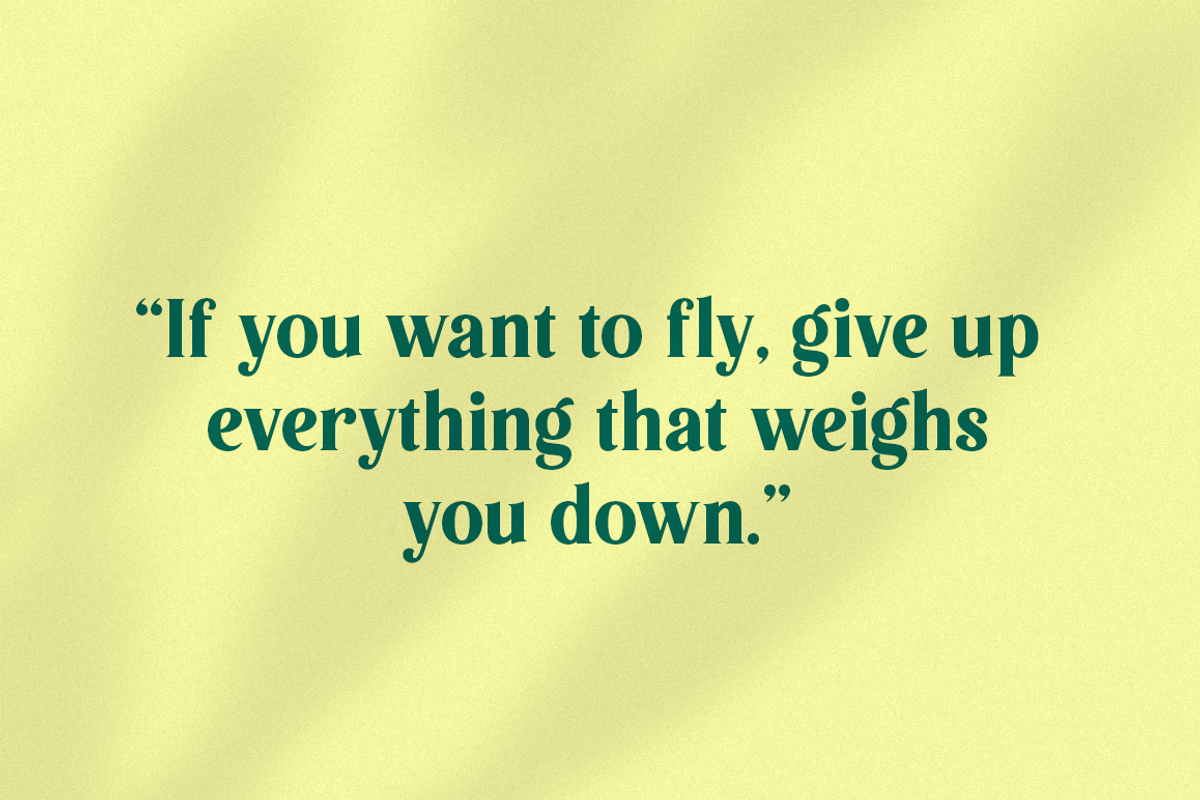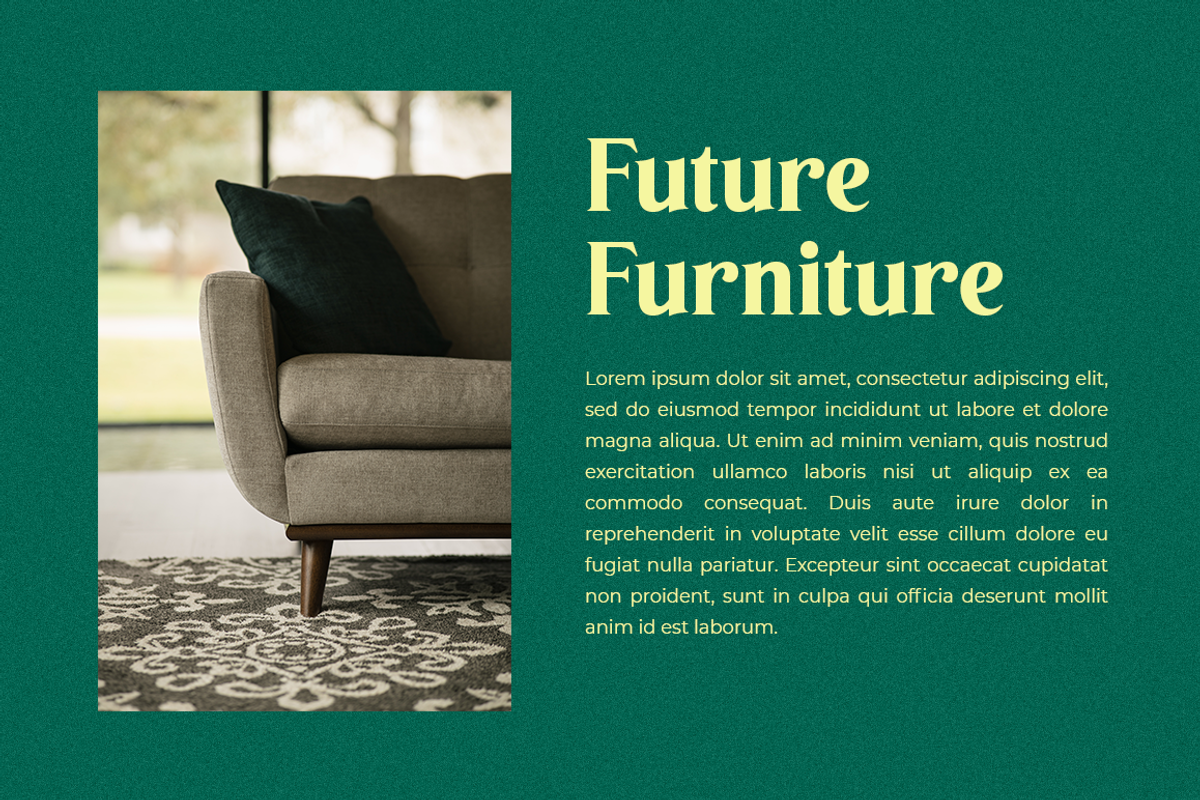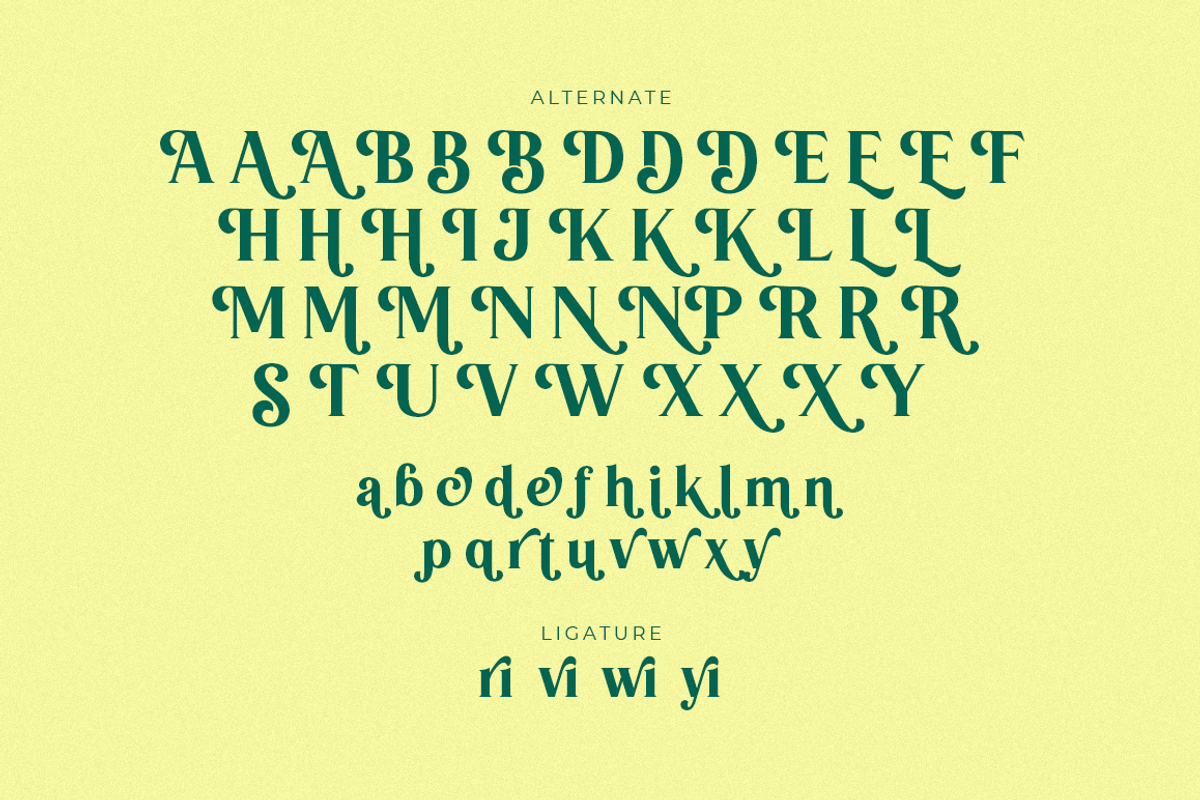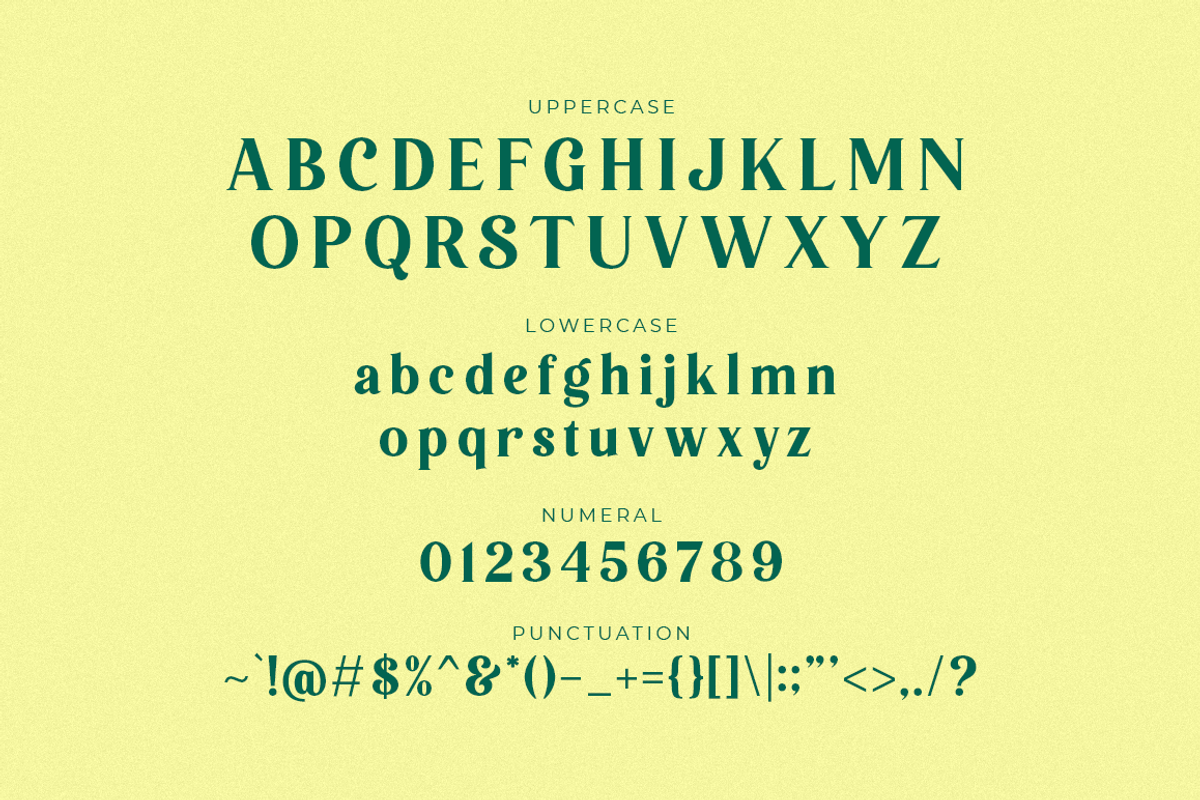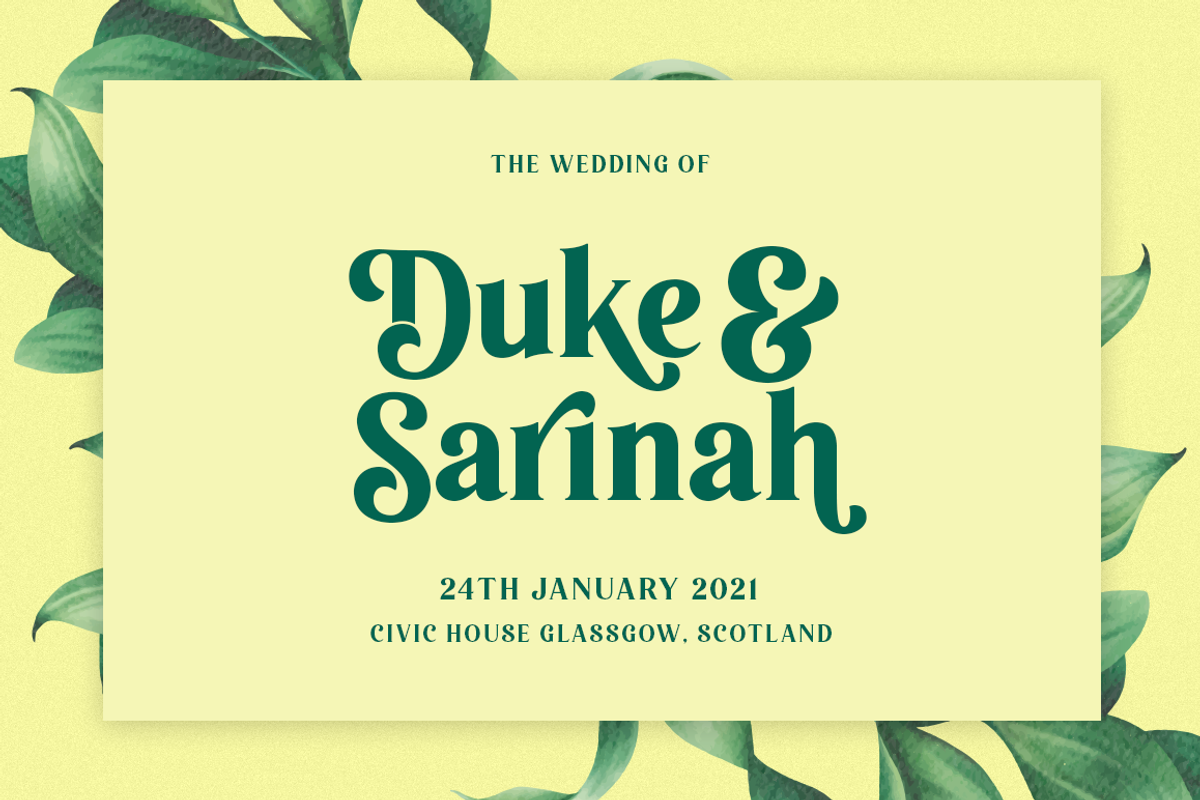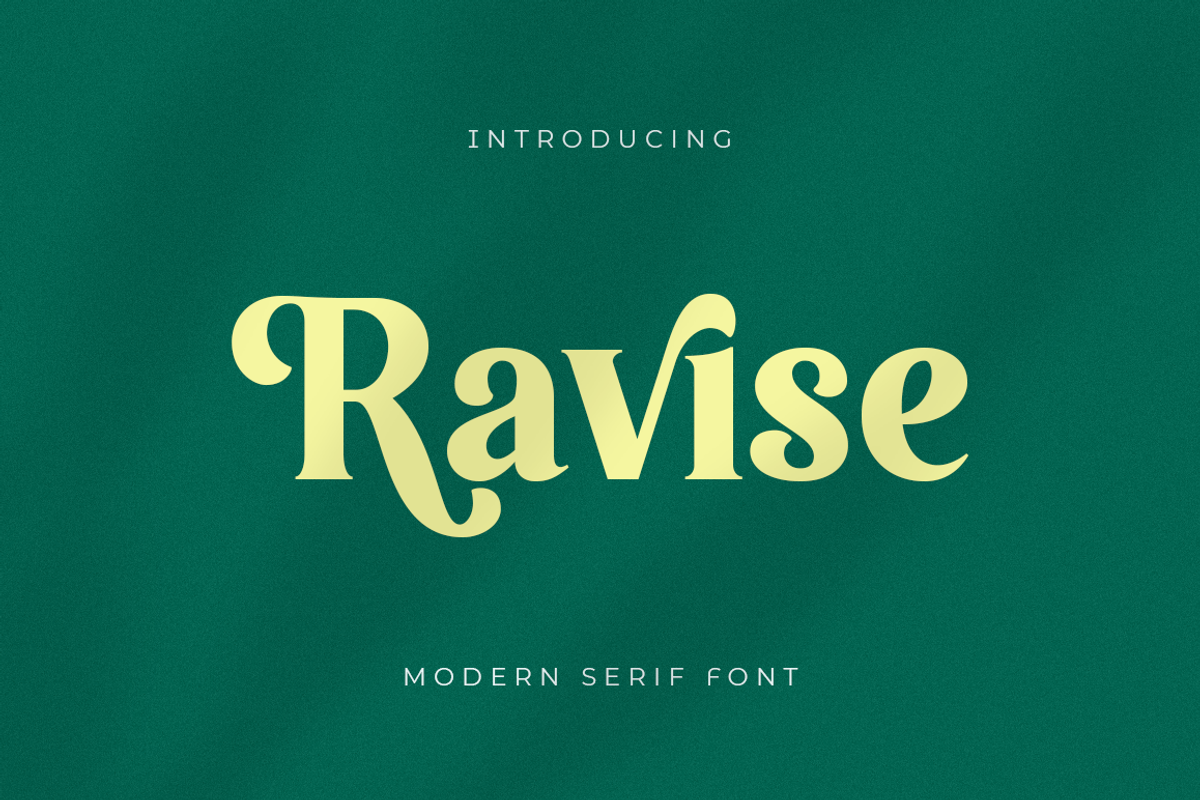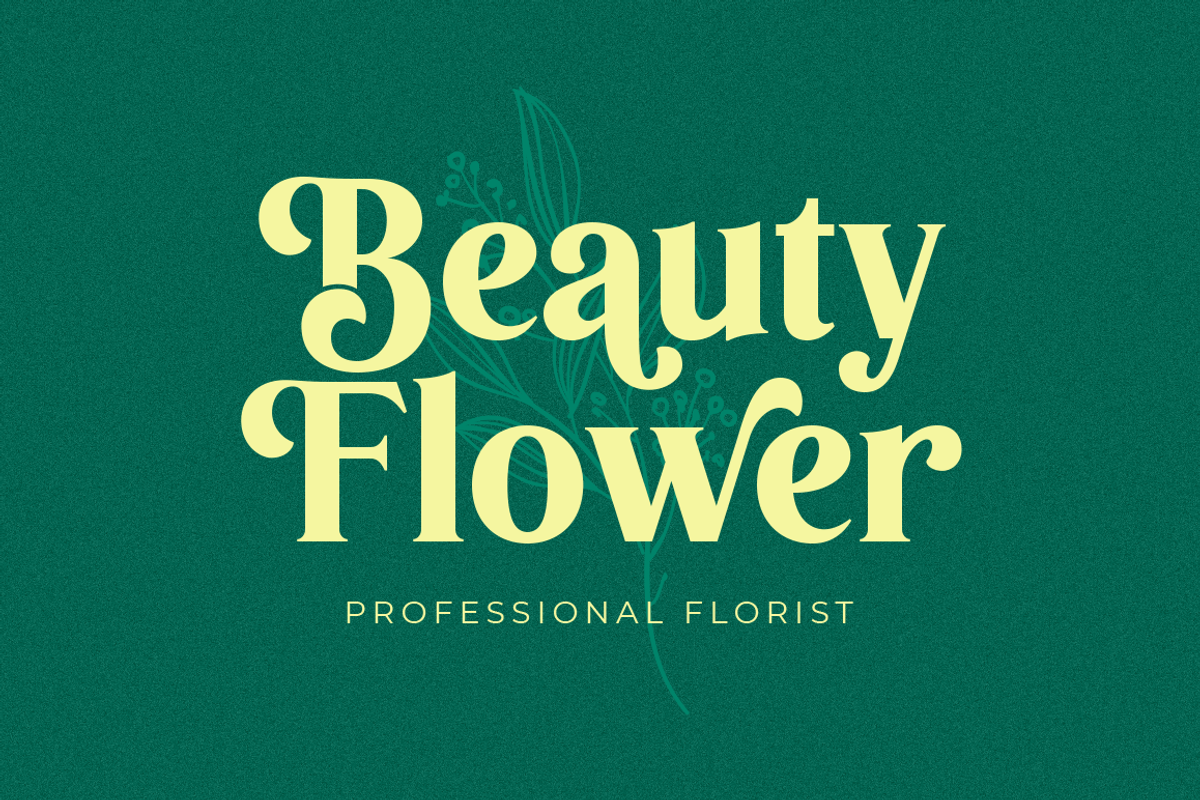
Ravise
Ravise is a modern serif font that perfectly suited to stationery, logo, typography quotes, magazine or book cover, website header, clothing, branding, packaging design, and more.